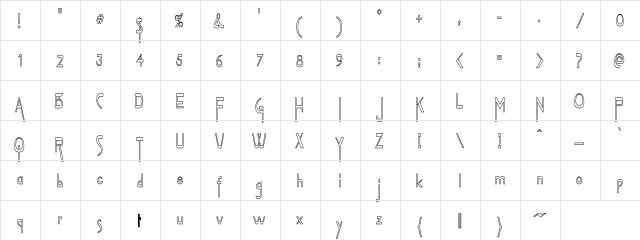
VireoFontHC Regular
Design Context for VireoFontHC Typeface
VireoFontHC is a composed and adaptable typeface that performs quietly and consistently across a wide range of design contexts.